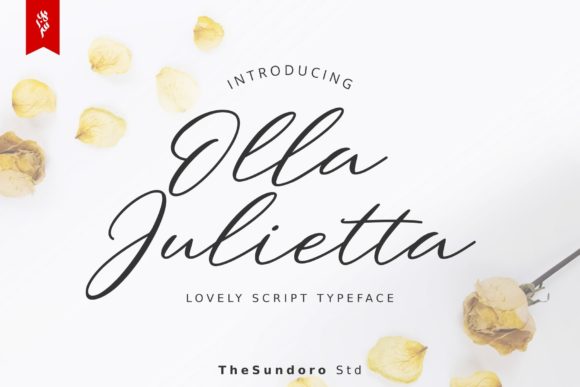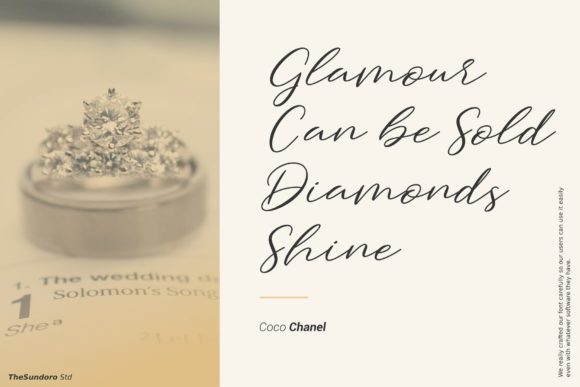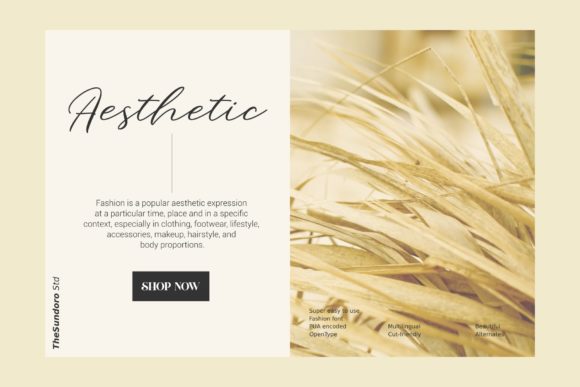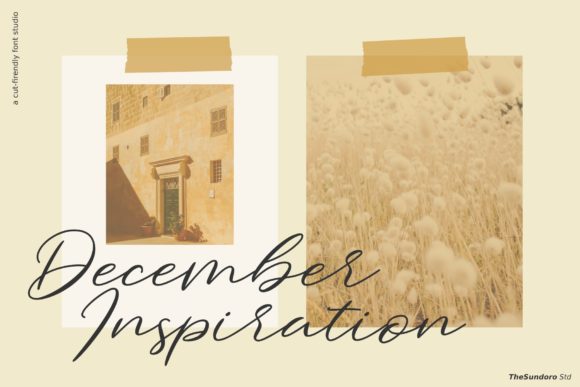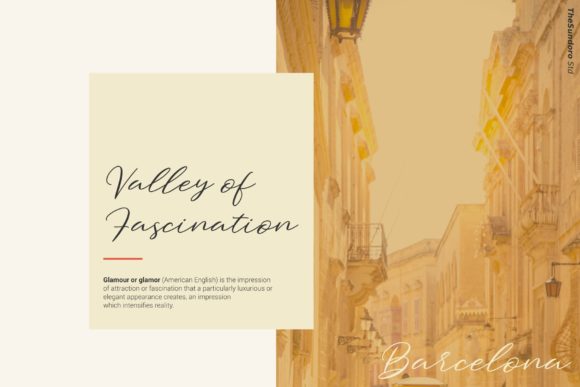
About Olla Julietta Font
Introducing “Olla Julietta,” an elegant and flowing handwritten font that radiates sheer grace and beauty. With its captivating style and versatility, “Olla Julietta” is the perfect choice for a wide range of design projects, including wedding invitations, thank you cards, quotes, greeting cards, logos, and business cards. Let’s explore what makes “Olla Julietta” stand out and why it’s the ideal font for adding a touch of handwritten sophistication to your designs:
Elegant and Flowing: “Olla Julietta” boasts smooth and flowing lines, creating a sense of effortless elegance. The graceful strokes lend a natural and organic feel to the font, enhancing its appeal for various design applications.
Varying Baseline: The varying baseline of “Olla Julietta” adds a dynamic and playful touch to your text, creating a sense of movement and interest. This feature infuses your designs with a unique character, making them visually captivating.
Gorgeous Glyphs and Alternates: With its meticulously designed glyphs and stunning alternates, “Olla Julietta” offers a wide range of design possibilities. You can effortlessly access these beautiful extras using OpenType features, allowing you to customize and embellish your designs to perfection.
Versatile Beauty: “Olla Julietta” is a font that seamlessly adapts to different design contexts. Whether you’re creating sophisticated wedding invitations or captivating business cards, “Olla Julietta” brings a touch of refined beauty to every project.
Timeless Appeal: The timeless elegance of “Olla Julietta” exudes a sense of class and sophistication. Its classic charm makes it a font that resonates with diverse audiences and design themes.
Create Lasting Impressions: Embrace the elegance and allure of “Olla Julietta” to craft designs that leave a lasting impact. The combination of flowing lines and stunning details will captivate your audience and elevate your projects to new heights.
Let “Olla Julietta” be your go-to handwritten font for adding an element of grace and charm to your designs. With its versatility and captivating style, “Olla Julietta” will prove to be a valuable addition to your design toolkit, bringing a sense of sophistication and refinement to all your creative endeavors.